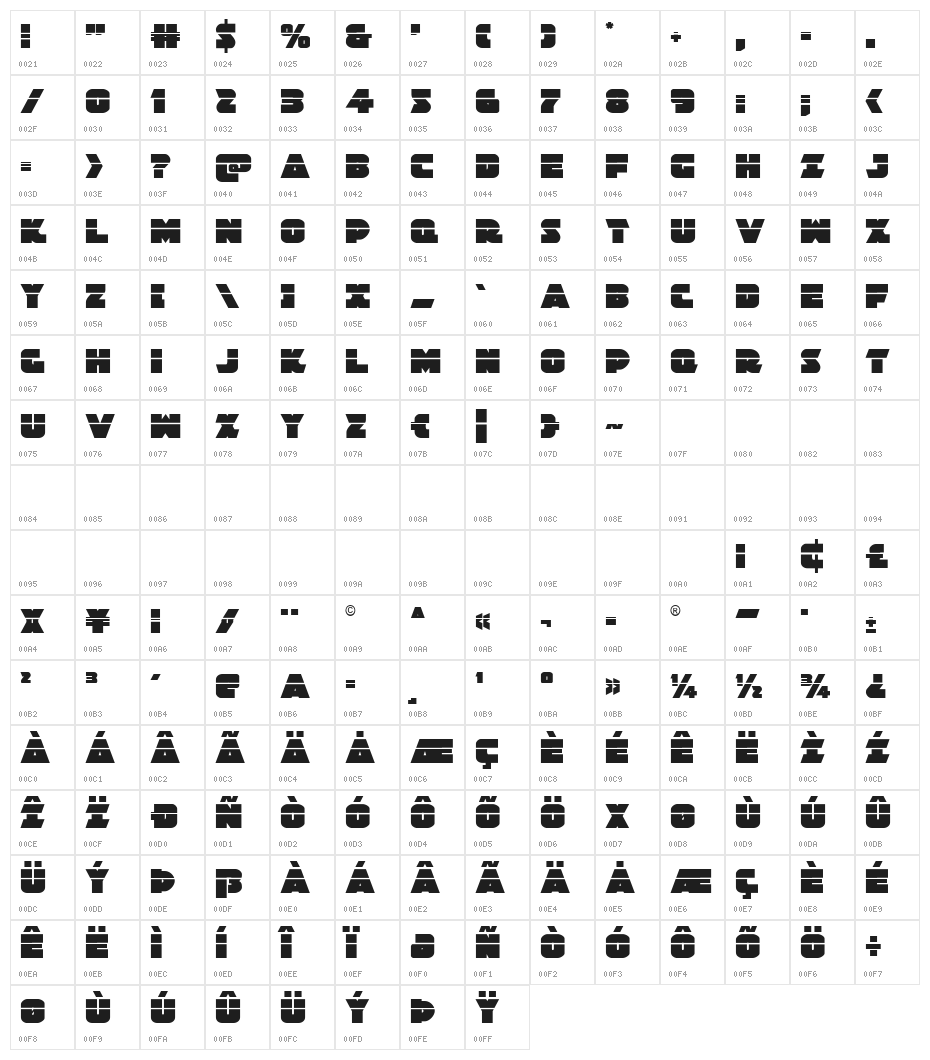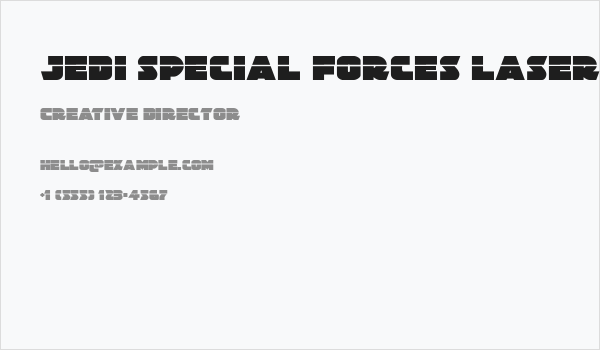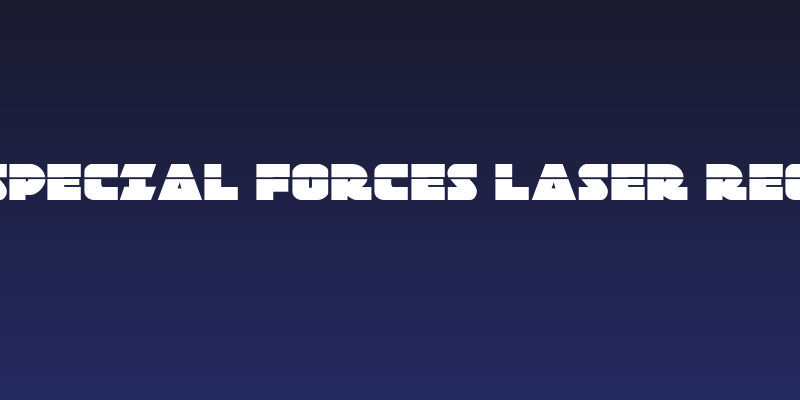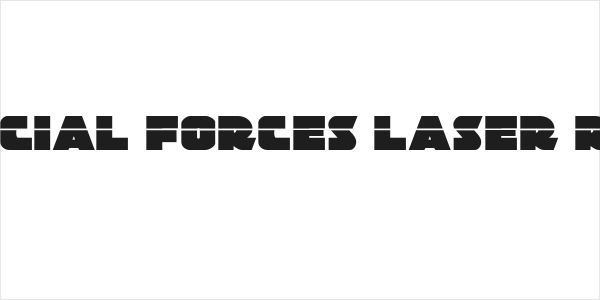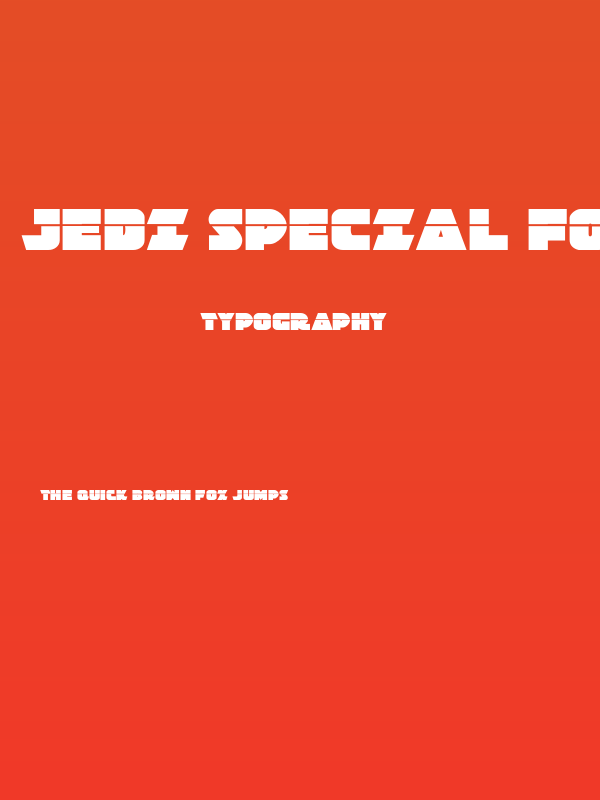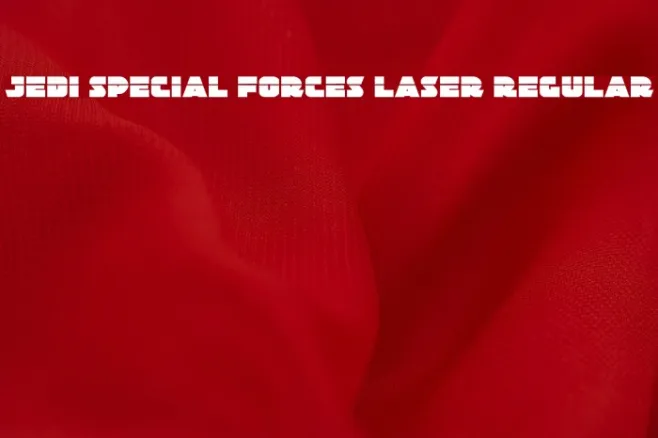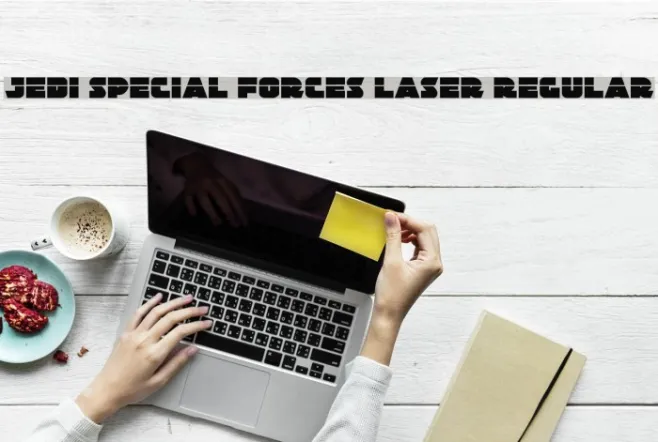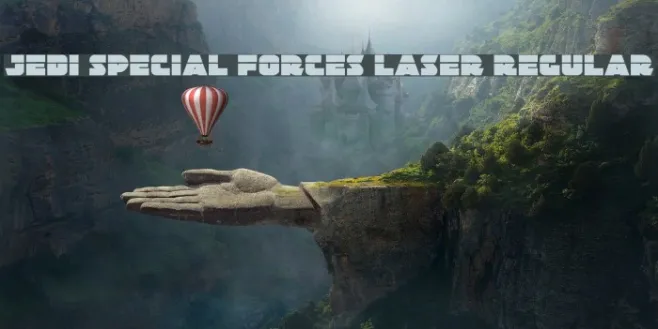
Jedi Special Forces Laser Regular Font
Jedi Special Forces Laser Regular Description
This font features a bold, futuristic design with a strong geometric influence. The characters are constructed with sharp angles and straight lines, giving them a distinct, sci-fi appearance. The uppercase letters are particularly striking, with a blocky, solid form that commands attention. The numbers and special characters maintain this bold aesthetic, ensuring consistency across all glyphs. The font's style is reminiscent of classic science fiction themes, making it ideal for projects that require a modern, tech-inspired look.